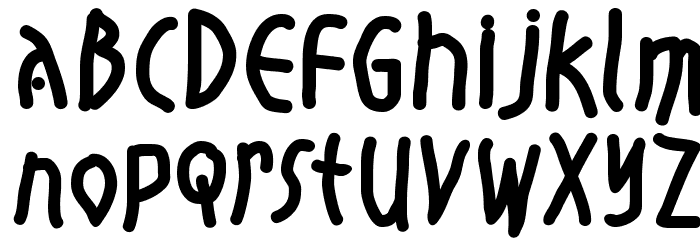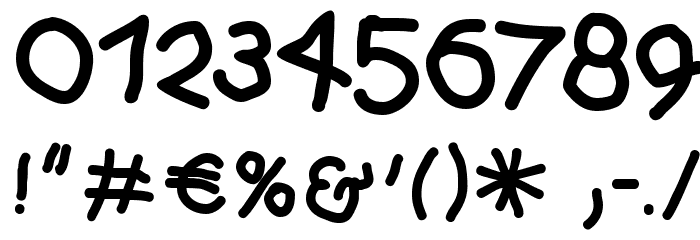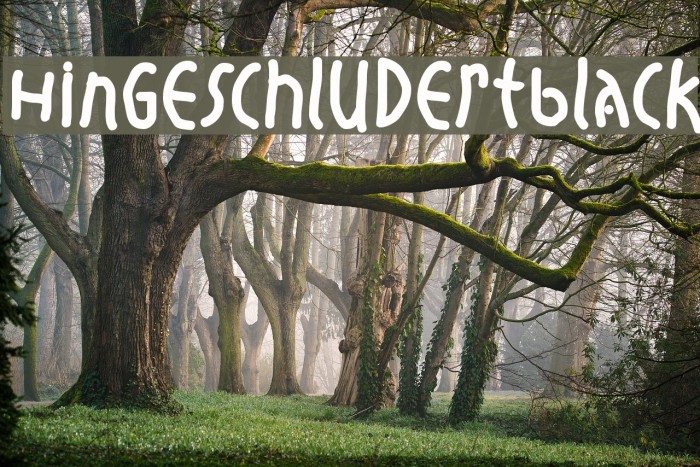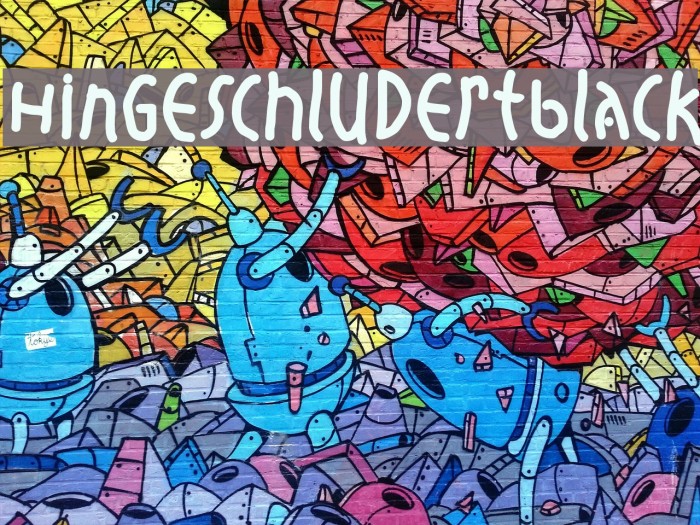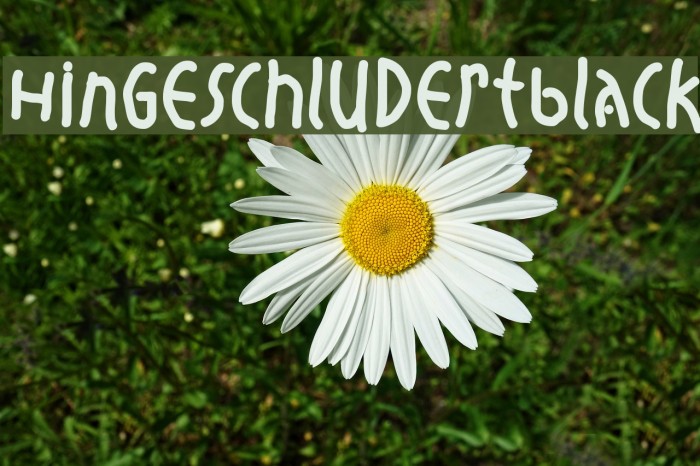
HingeschludertBlack Font
This font exhibits a playful and informal style, characterized by its hand-drawn appearance. The letters are slightly irregular, giving it a whimsical and casual feel. The strokes are bold and rounded, with a consistent thickness throughout, which adds to its friendly and approachable look. The uppercase and lowercase letters maintain a cohesive style, while the numerals and special characters complement the overall design. This font is ideal for projects that require a touch of personality and creativity.
A playful, hand-drawn font with bold, rounded strokes and a whimsical style.
- Proposed Projects: Perfect for children's books, creative posters, casual branding, and playful invitations.
- Overall Style: Playful